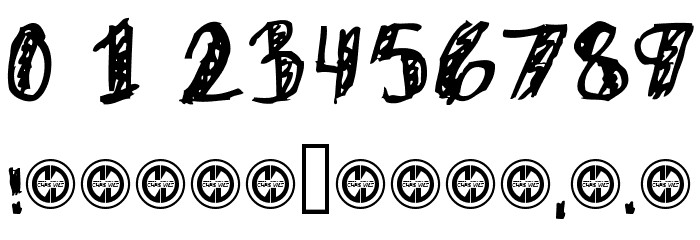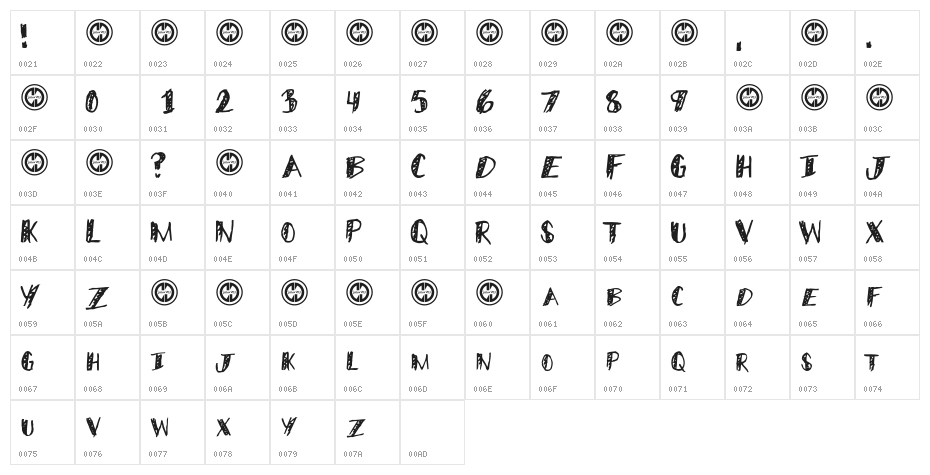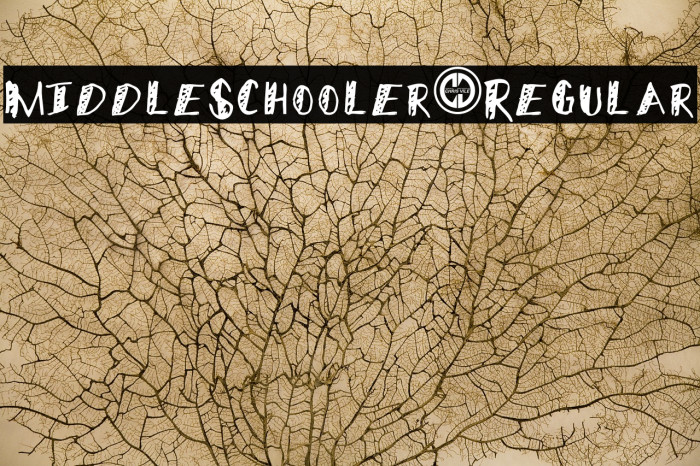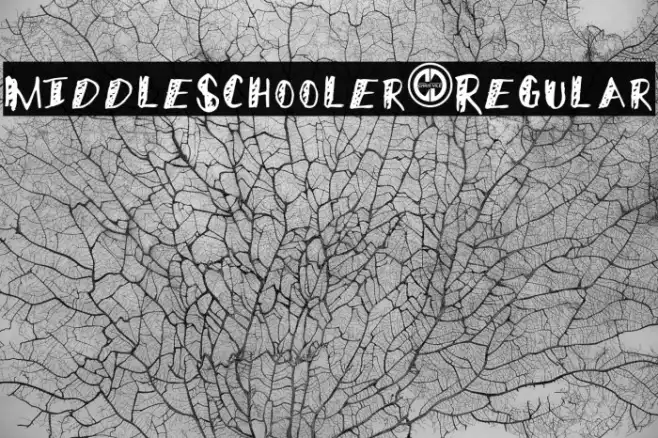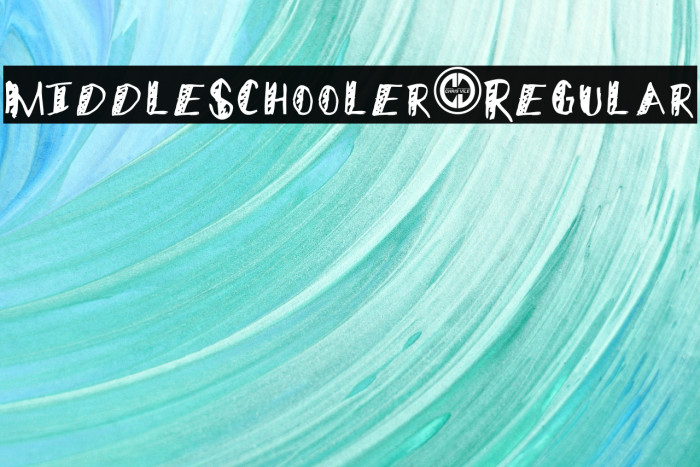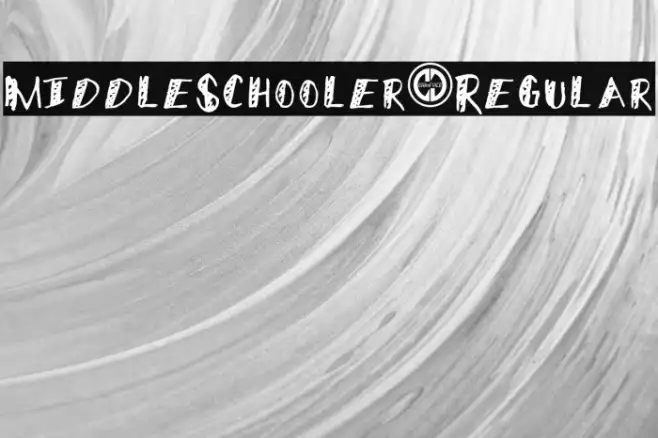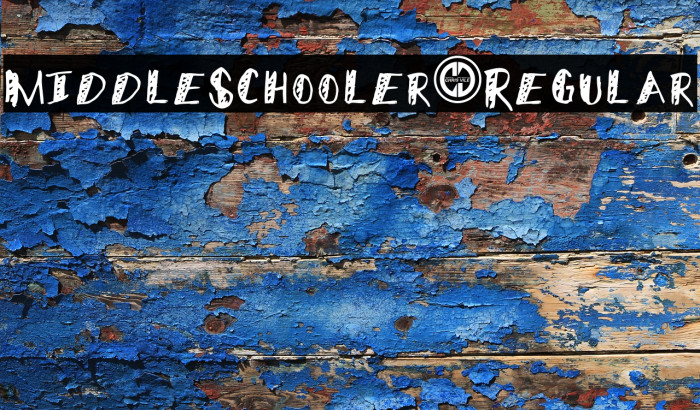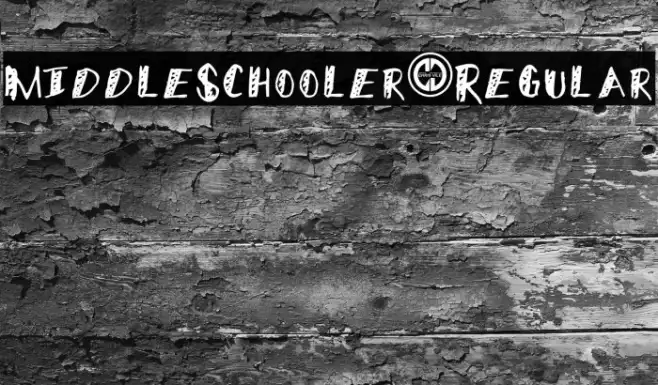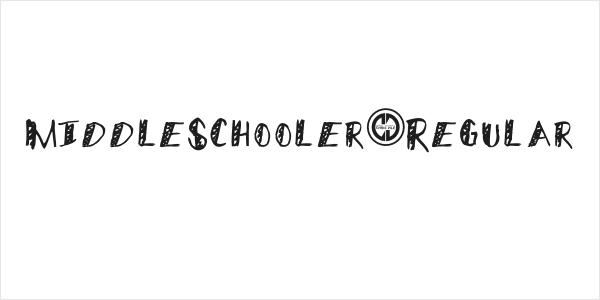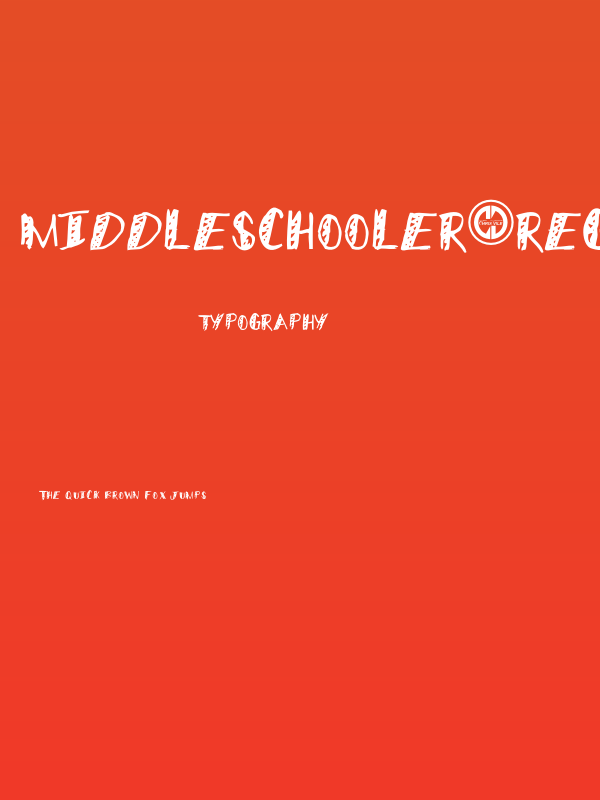
MiddleSchooler-Regular Font
MiddleSchooler-Regular Description
This font features a playful and energetic style, characterized by its bold and irregular strokes that give it a hand-drawn appearance. The letters are slightly slanted, adding a dynamic feel, while the uneven edges and varying thicknesses contribute to its informal and whimsical look. The font maintains a consistent height across characters, ensuring readability despite its quirky design. It includes both uppercase and lowercase letters, numerals, and a selection of special characters, making it versatile for various creative projects.
| Overall Style | Playful, Energetic, Hand-drawn |
| Proposed Projects | Ideal for children's book covers, school event posters, playful branding, and creative social media graphics. |